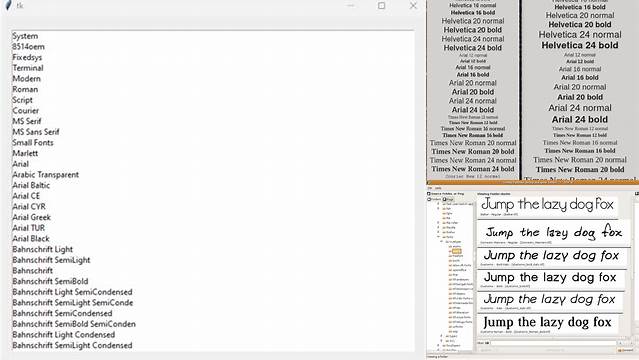
Tkinter Fonts: A Comprehensive Guide
Tkinter, the go-to GUI library for Python, offers a straightforward way to create desktop applications. One crucial aspect of GUI design is font selection. Fonts play a significant role in the look and feel of your application, influencing readability and user experience. So, guys, if you're diving into Tkinter and want to master font handling, you've come to the right place! In this article, we'll explore how to list, customize, and use fonts in your Tkinter applications, ensuring your text elements look just the way you want them.
Why Fonts Matter in Tkinter
Before we dive into the technical details, let's quickly touch on why fonts are so important. Think about it: the fonts you choose dictate how readable your text is, and readability is key to user engagement. A well-chosen font can make your application look professional and polished, while a poorly chosen one can make it seem amateurish or even difficult to use. Fonts also contribute to the overall aesthetic of your application. Different fonts evoke different feelings—some are formal, some are playful, and others are modern. By carefully selecting fonts, you can align the visual presentation of your application with its purpose and brand. Plus, font customization options like size, weight, and style allow you to create visual hierarchy, drawing attention to important elements and guiding the user's eye. So, fonts aren't just about making text visible; they're about communication, aesthetics, and usability.
Listing Available Fonts in Tkinter
Okay, so how do we actually see what fonts are available in Tkinter? The tkinter.font
module provides the tools we need. Specifically, the families()
method allows us to get a list of all font families installed on the system. This is super useful because what's available will depend on the user's operating system and installed fonts. To start, you'll need to import the necessary modules and create a Tkinter root window. Then, you can use the font.families()
method to retrieve a tuple of font family names. Let's break down the code:
import tkinter as tk
import tkinter.font as font
root = tk.Tk()
font_families = font.families()
for family in font_families:
print(family)
root.mainloop()
In this snippet, we first import tkinter
as tk
and tkinter.font
as font
. We create a root window, which is the main window of our application. Then, we call font.families()
and store the result in font_families
. Finally, we loop through the font_families
tuple and print each font family name. Running this code will give you a list of all font families available on your system, which you can then use in your Tkinter application. This list is your starting point for font exploration!
Customizing Fonts in Tkinter
Now that we know how to list fonts, let's talk about customization. Tkinter gives you a lot of control over how your fonts look. You can adjust the font family, size, weight (like bold), slant (like italic), and even underline or overstrike. The tkinter.font.Font
class is your best friend here. You can create a Font
object and specify the attributes you want. Let's dive into the details.
Specifying Font Attributes
The Font
class constructor takes several options, allowing you to define the font's appearance. The most common options include:
family
: The font family name (e.g., "Arial", "Times New Roman").size
: The font size in points (positive integer) or pixels (negative integer).weight
: The font weight, which can be "normal" or "bold".slant
: The font slant, which can be "roman" (normal) or "italic".underline
: A boolean value indicating whether the font should be underlined.overstrike
: A boolean value indicating whether the font should be overstruck.
Here’s an example of how to create a custom font:
import tkinter as tk
import tkinter.font as font
root = tk.Tk()
custom_font = font.Font(
family="Helvetica", size=12, weight="bold", slant="italic"
)
label = tk.Label(root, text="Hello, Tkinter!", font=custom_font)
label.pack()
root.mainloop()
In this example, we create a font named custom_font
with the Helvetica family, a size of 12 points, bold weight, and italic slant. We then create a Label
widget and set its font
option to our custom_font
. When you run this code, you'll see a label with the specified font style. This is how you can fine-tune the appearance of your text elements in Tkinter.
Using Font Names
Tkinter also supports font names, which are strings that combine font attributes into a single specification. Font names follow a specific format: -family-size-weight-slant-underline-overstrike
. Each component is optional, and you can use an asterisk (*) as a wildcard. For example, -*-12-bold-*-*-*
would match any 12-point bold font. Using font names can be a concise way to specify fonts, especially if you have complex font requirements. However, using the Font
class with keyword arguments is generally more readable and maintainable. But, hey, it’s good to know this method exists!
Applying Fonts to Tkinter Widgets
Alright, we've learned how to list and customize fonts. Now, let's see how to apply them to widgets in Tkinter. Widgets like Label
, Button
, Entry
, and Text
have a font
option that you can use to set the font. You can either pass a Font
object or a font name string to this option. Applying fonts to widgets is straightforward, but it’s essential to understand how font inheritance works in Tkinter. Let's dig in.
Setting Fonts for Individual Widgets
The most direct way to apply a font is to set the font
option for a specific widget. This gives you fine-grained control over the appearance of each text element in your application. Here’s an example:
import tkinter as tk
import tkinter.font as font
root = tk.Tk()
# Create a custom font
custom_font = font.Font(family="Arial", size=14, weight="normal")
# Create a label with the custom font
label = tk.Label(root, text="This is Arial 14", font=custom_font)
label.pack()
# Create a button with a different font
button_font = font.Font(family="Times New Roman", size=12, weight="bold")
button = tk.Button(root, text="Click Me", font=button_font)
button.pack()
root.mainloop()
In this example, we create two widgets: a Label
and a Button
. Each widget has its own font specified using the font
option. The label uses an Arial 14-point font, while the button uses a Times New Roman 12-point bold font. This approach is great for cases where you need different fonts for different elements.
Using Default Fonts
Tkinter has default fonts that it uses if you don't specify a font for a widget. These default fonts are platform-dependent, meaning they might look different on Windows, macOS, and Linux. Tkinter provides three default font names that you can use: TkDefaultFont
, TkTextFont
, and TkFixedFont
. These are actually font objects that Tkinter creates automatically. You can modify these default fonts to change the appearance of all widgets that use them. This is super handy for setting a consistent look across your application.
Font Inheritance
Font inheritance is a key concept in Tkinter. If a widget doesn't have a font specified, it will inherit the font from its parent widget. This inheritance continues up the widget hierarchy until it reaches the root window. If the root window doesn't have a font specified, Tkinter will use its default font. This inheritance mechanism can simplify font management in your application. You can set a font for the root window, and all child widgets will inherit that font unless they have their own font specified. This allows you to set a base font for your application and then override it for specific widgets as needed.
Best Practices for Font Usage in Tkinter
Alright, we've covered the technical aspects of fonts in Tkinter. Now, let's talk about some best practices to keep in mind when working with fonts in your applications. Choosing the right fonts and using them effectively can significantly impact the user experience. Here are some tips to help you make the most of fonts in Tkinter.
Choose Readable Fonts
The most important thing to consider when selecting fonts is readability. A fancy or unusual font might look cool, but if it's hard to read, it's not a good choice for your application. Stick to fonts that are clear and easy to read, especially for body text. Common choices include Arial, Helvetica, Times New Roman, and Verdana. For headings and titles, you might have a little more leeway to use decorative fonts, but always prioritize readability.
Maintain Consistency
Consistency is key to a professional-looking application. Try to limit the number of different fonts you use in your application. A good rule of thumb is to use no more than two or three different fonts. Using too many fonts can make your application look cluttered and disorganized. Choose a primary font for body text and a secondary font for headings or accents. Stick to these fonts throughout your application to create a cohesive visual identity.
Consider Platform Differences
Fonts can look different on different operating systems. Some fonts that are available on one platform might not be available on another. When choosing fonts for your Tkinter application, consider the platforms your users will be using. If you use a font that's not available on a user's system, Tkinter will substitute it with a default font, which might not look the way you intended. To avoid this, you can either stick to common fonts that are available on most platforms or use font families. Font families are groups of fonts that have similar characteristics. For example, the "serif" family includes fonts like Times New Roman, while the "sans-serif" family includes fonts like Arial and Helvetica. You can specify a font family instead of a specific font name, and Tkinter will choose the best available font in that family on the user's system.
Use Font Styles Effectively
Font styles like bold, italic, and underline can be used to emphasize text and create visual hierarchy. However, it's important to use them sparingly. Overusing font styles can make your text look cluttered and difficult to read. Use bold for headings and key words, italic for emphasis or citations, and underline sparingly, as it can interfere with the readability of text. Think of font styles as tools to guide the user's eye and highlight important information.
Test Your Fonts
Finally, always test your fonts in your application to make sure they look good and are readable. View your application on different screen sizes and resolutions to see how the fonts scale. Ask others to test your application and provide feedback on the font choices. Testing is the best way to ensure that your fonts are effective and contribute to a positive user experience.
So, there you have it, guys! We've covered everything you need to know about handling fonts in Tkinter, from listing available fonts to customizing them and applying them to widgets. Remember, fonts are a crucial element of GUI design, influencing readability and overall aesthetic appeal. By understanding how to use fonts effectively in Tkinter, you can create applications that not only function well but also look great. Keep experimenting with different fonts and styles to find what works best for your applications. Happy coding!